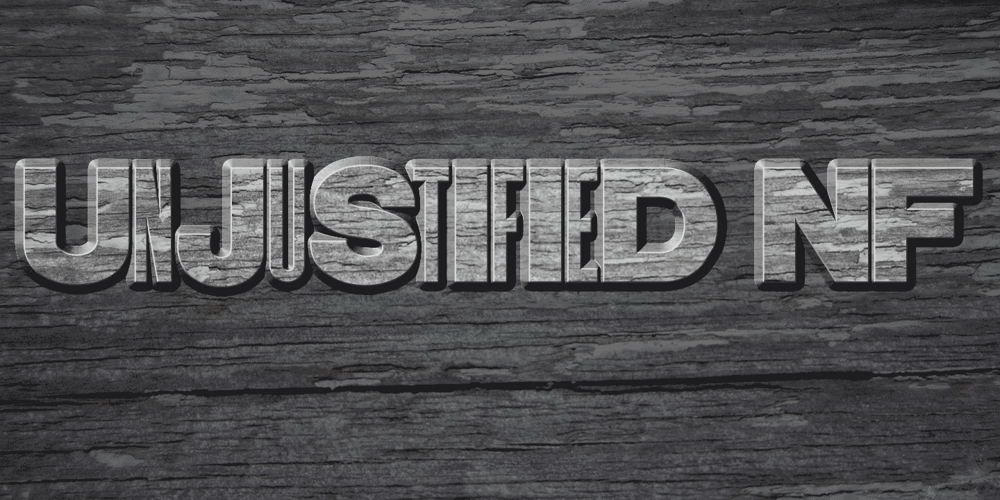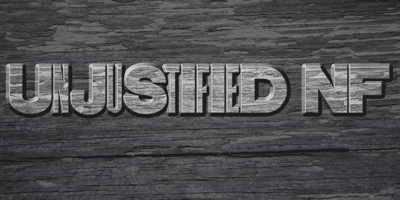
Unjustified NF Font Family was designed by published by Nick’s Fonts. Unjustified NF contains 1 styles and family package options. No secret here: this typeface was inspired by the opening credits for the television series “Justified.” Alternate upper and lowercase letter to achieve the effect, or—in OpenType-savvy programs—activate the Contextual Alternates (calt) feature. Thin numbers can be found in these positions: ~^{}[]|<>. Both versions of this font support the Latin 1262, Central European 1250, Turkish 1254 and Baltic 1257 codepages.